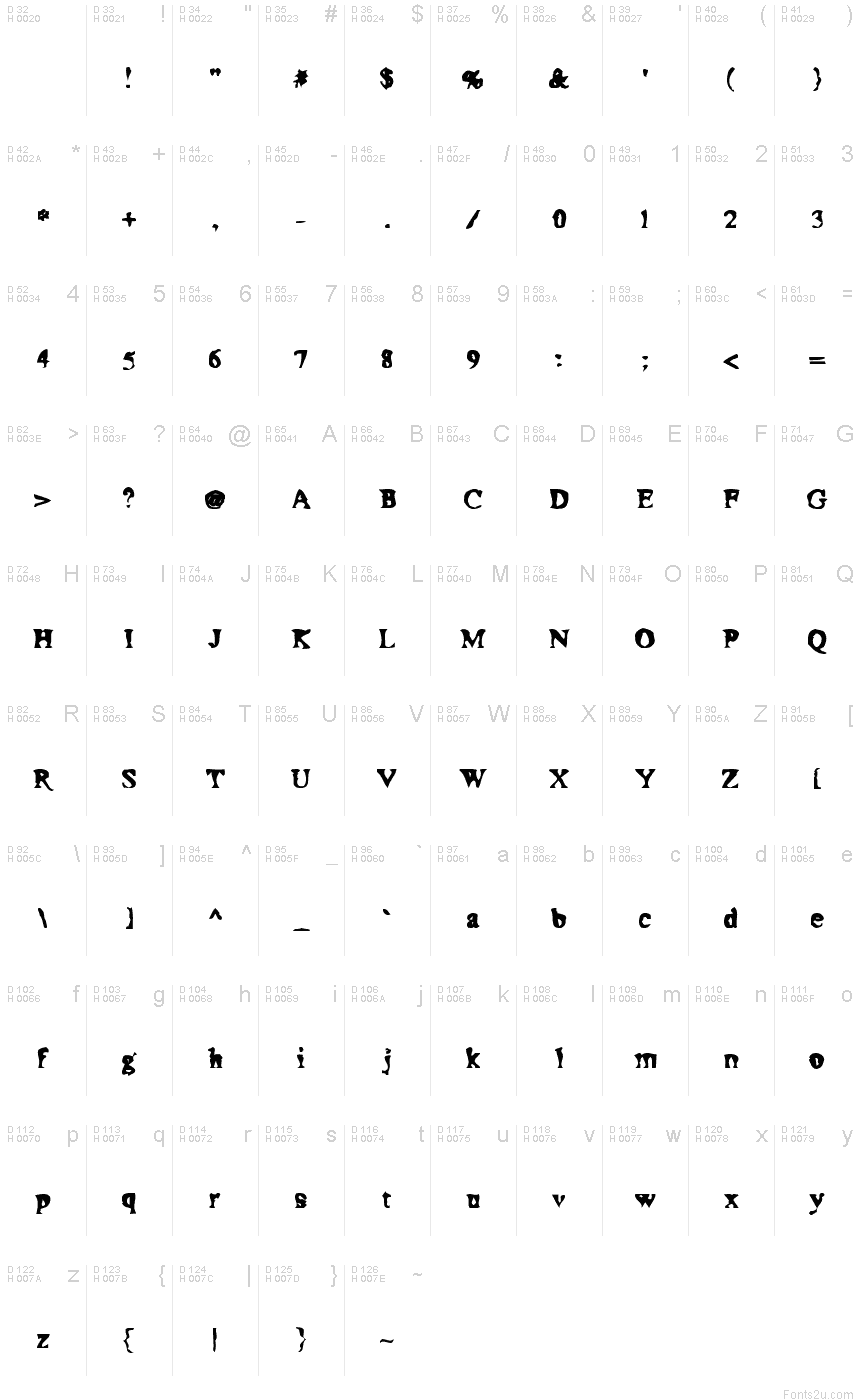
Moonshine Murky
Moonshine Murky by Chank Diesel is a free distorted display font with a warped silhouette and uneven, hand-cut curves throughout. The letters keep a compact poster shape, but the off-kilter angles and swollen round forms make each word feel slightly twisted overall.
Moonshine Murky suits album covers, concert flyers, horror posters, zine titles, and logo marks that need a rougher graphic edge. Its bent outlines also carry well in sticker art, event branding, and short decorative headlines where a little distortion is more useful than polish.